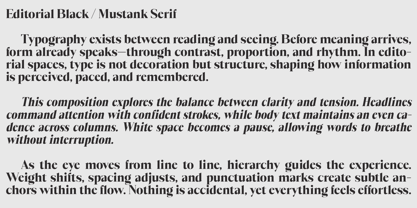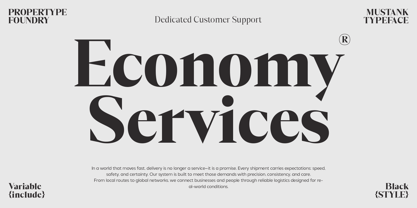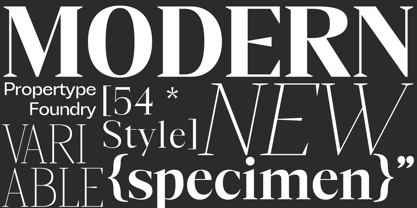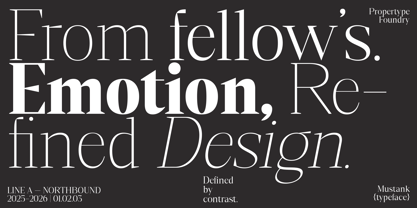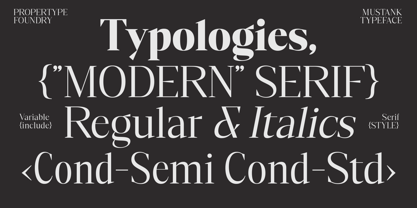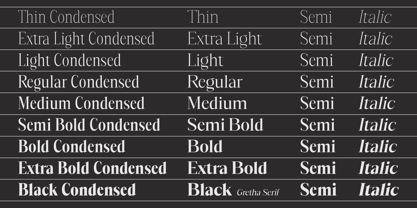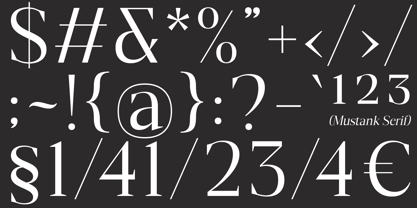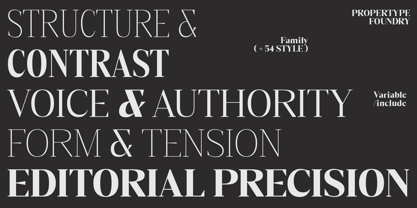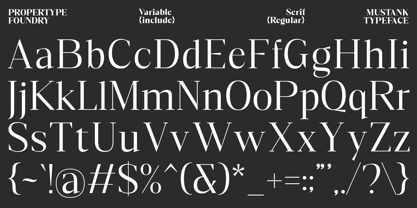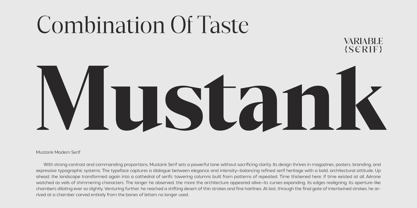
Mustank Serif
The Mustank Serif Font Family was designed by Nadia Auliana and published by Propertype. Mustank Serif contains 53 styles and family package options. More about this family
Mustank Serif is an elegant and warm serif typeface with a classic feel. This typeface is designed to enhance credibility. It includes 52 fonts, both upright and italic, ranging from light to black. It also includes one variable font. OpenType features allow for the implementation of typography such as ligatures and support for multiple languages. A good choice for branding, magazines, posters, advertisements, print, packaging, headlines, web design, and more.